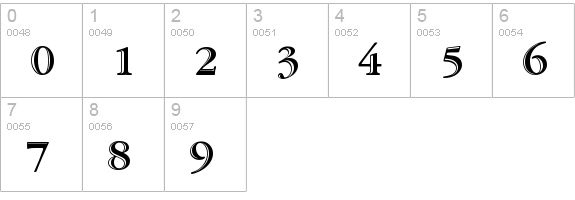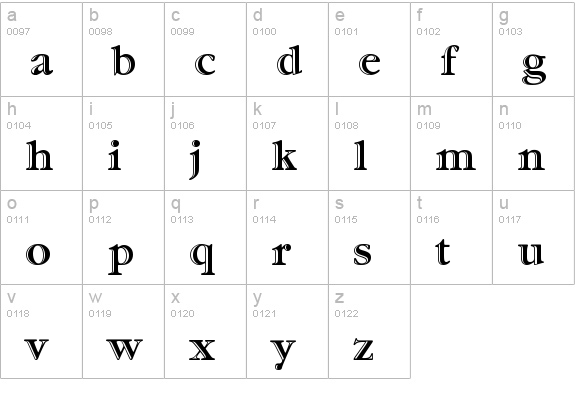
Garamond Hand ICG Font Details
Garamond Hand ICG is a beautifully crafted font that exudes elegance and sophistication. The delicate curves and thin strokes of this typeface make it a perfect choice for projects that require a touch of refinement. This font is a modern interpretation of the classic Garamond font, with a hand-drawn feel that adds a unique and personal touch to any design. Garamond Hand ICG is freely available to download at FontsMarket.com, allowing designers and creatives to incorporate this stunning font into their work without any restrictions. Whether you are working on a logo, branding, or editorial design, Garamond Hand ICG will bring a sense of timeless beauty to your project. With its versatility and legibility, Garamond Hand ICG can be used for both headings and body text, making it an excellent choice for various applications. Its refined appearance lends itself well to high-end fashion magazines, luxury branding, and wedding invitations. This font offers a wide range of characters, including uppercase and lowercase letters, numbers, punctuation marks, and special glyphs. The attention to detail and meticulous hand-drawn design ensure that every character in Garamond Hand ICG is visually captivating. Whether you are a professional designer or a hobbyist, Garamond Hand ICG is the perfect font to add a touch of sophistication to your designs. Download it for free at FontsMarket.com and explore the endless creative possibilities that this font has to offer.